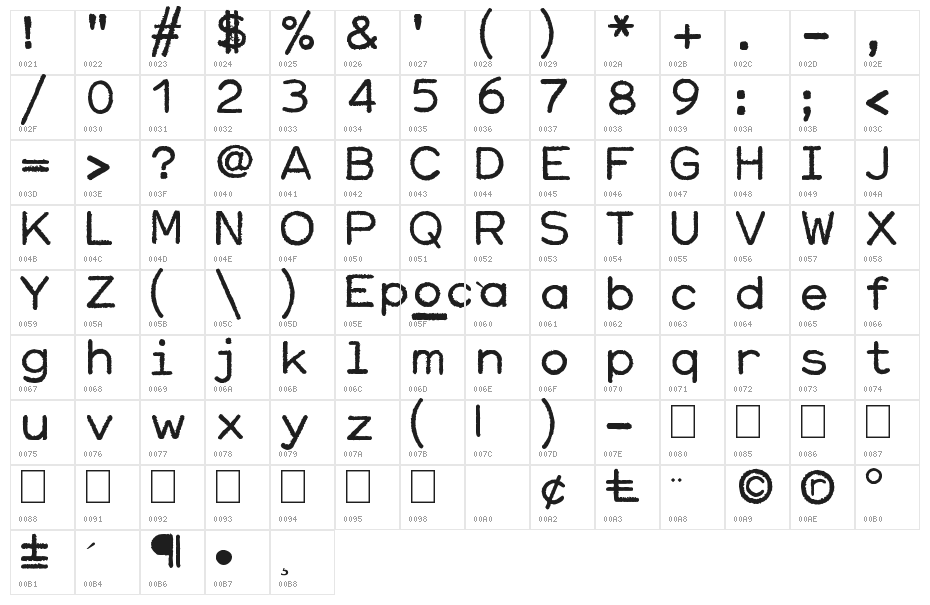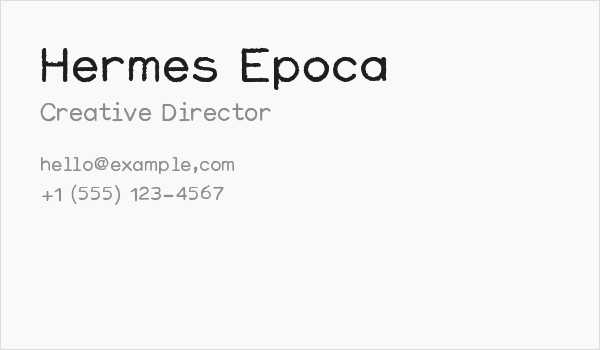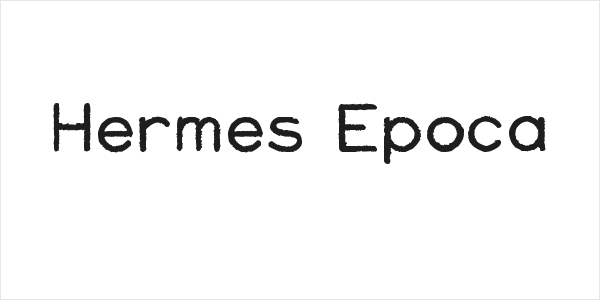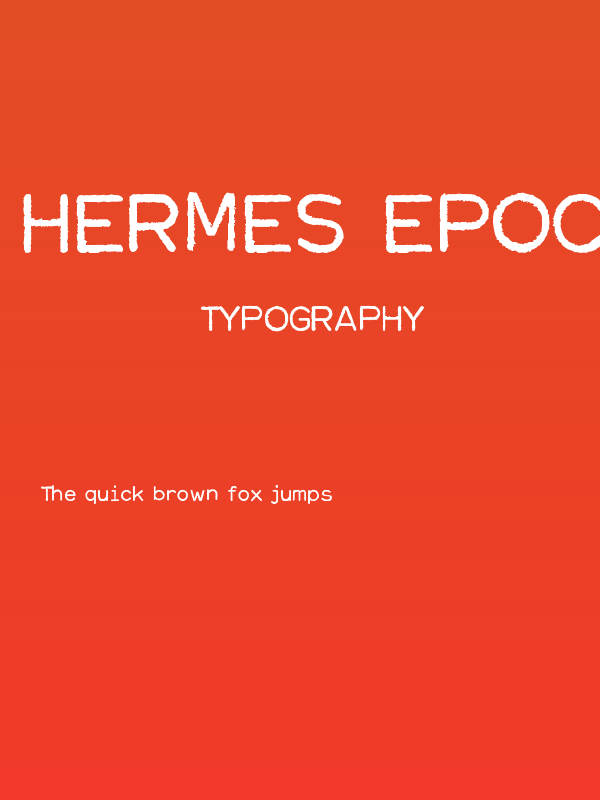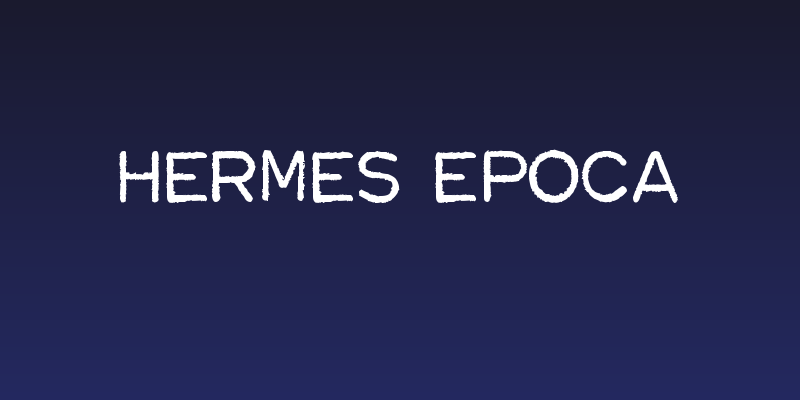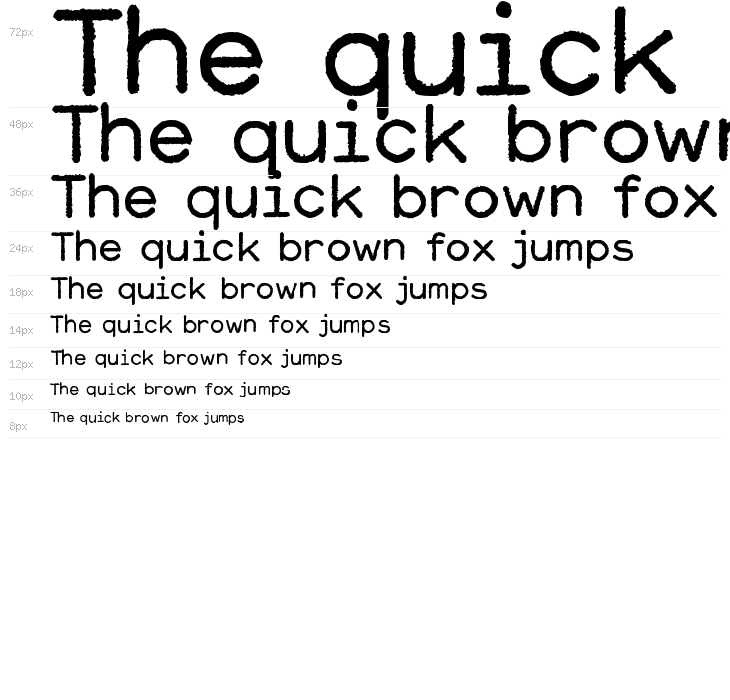
Hermes Epoca Font
Hermes Epoca Description
This font features a playful and casual design with rounded edges and a hand-drawn appearance. The characters are slightly irregular, giving it a friendly and approachable feel. The uppercase and lowercase letters maintain a consistent style, with a uniform stroke width that adds to its legibility. The numerals and special characters are well-integrated, matching the overall aesthetic. This font is versatile, suitable for projects that require a personal touch or a relaxed vibe. Its unique style makes it stand out, while still being easy to read.
Overall StyleCasual
Use CaseLogos, Headlines, Informal Text
Proposed ProjectsIdeal for greeting cards, children's books, casual branding, or social media graphics.